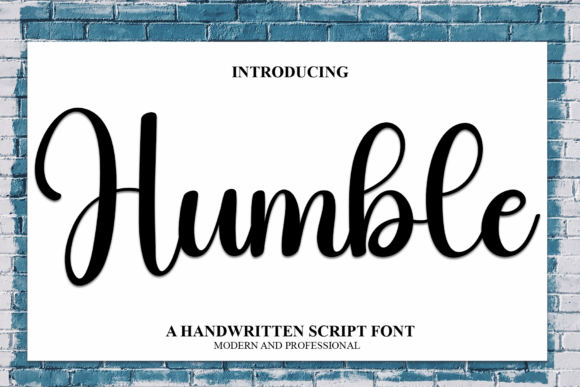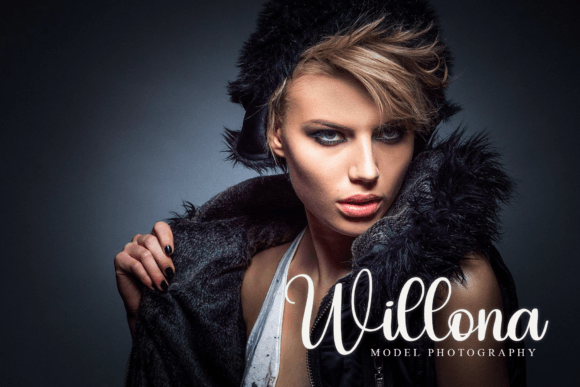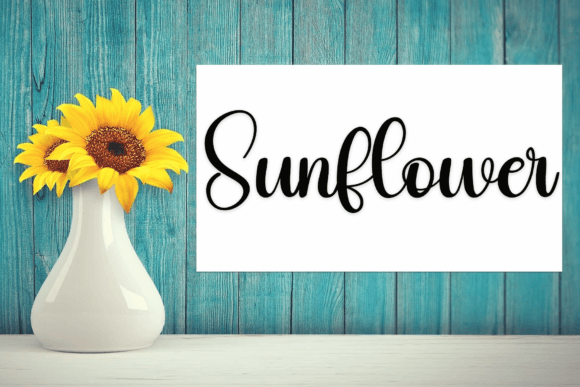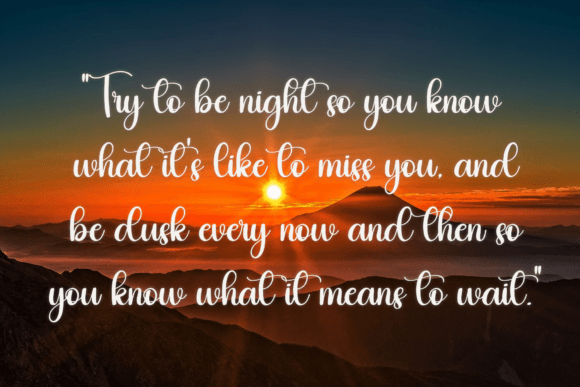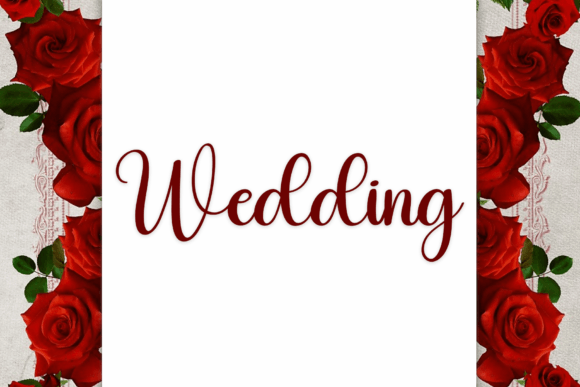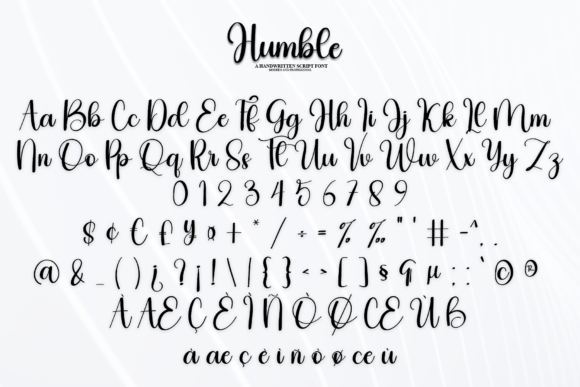
About Humble Font
Humble stands out as a one-of-a-kind, round-lettered handwritten font meticulously crafted to add a unique touch to your beloved projects. With meticulous design and attention to detail, this font is tailored to elevate a variety of creative works, offering versatility for titles, invitations, letters, and an array of other products.
The round-lettered aesthetic of Humble brings a distinctive and approachable vibe to your designs. Each letter is carefully shaped, contributing to the font’s overall uniqueness and visual appeal. This makes Humble a standout choice for projects that seek to incorporate a touch of character and individuality.
One of Humble’s key strengths is its adaptability. Whether you’re working on eye-catching titles requiring a distinctive flair, elegant invitations demanding a personal touch, or heartfelt letters needing authenticity, Humble rises to the occasion. Its round-lettered style adds warmth and friendliness, making it suitable for a broad spectrum of creative applications.
As a handwritten font, Humble imparts an authentic feel to your text. Its unique style conveys a handcrafted touch, injecting personality and character into your written content. This quality is particularly valuable when you want to establish a genuine connection with your audience or infuse a sense of humility and simplicity into your designs.
Incorporating Humble into your design toolkit opens the door to creative expressions. Its round-lettered design makes it distinctive while ensuring versatility across various design contexts.
In essence, Humble is not just a font; it’s a carefully crafted creative tool intended to enhance and elevate your projects. Whether you’re aiming for a playful or sincere tone, Humble’s round-lettered style brings a unique and captivating touch to your favorite creative endeavors.